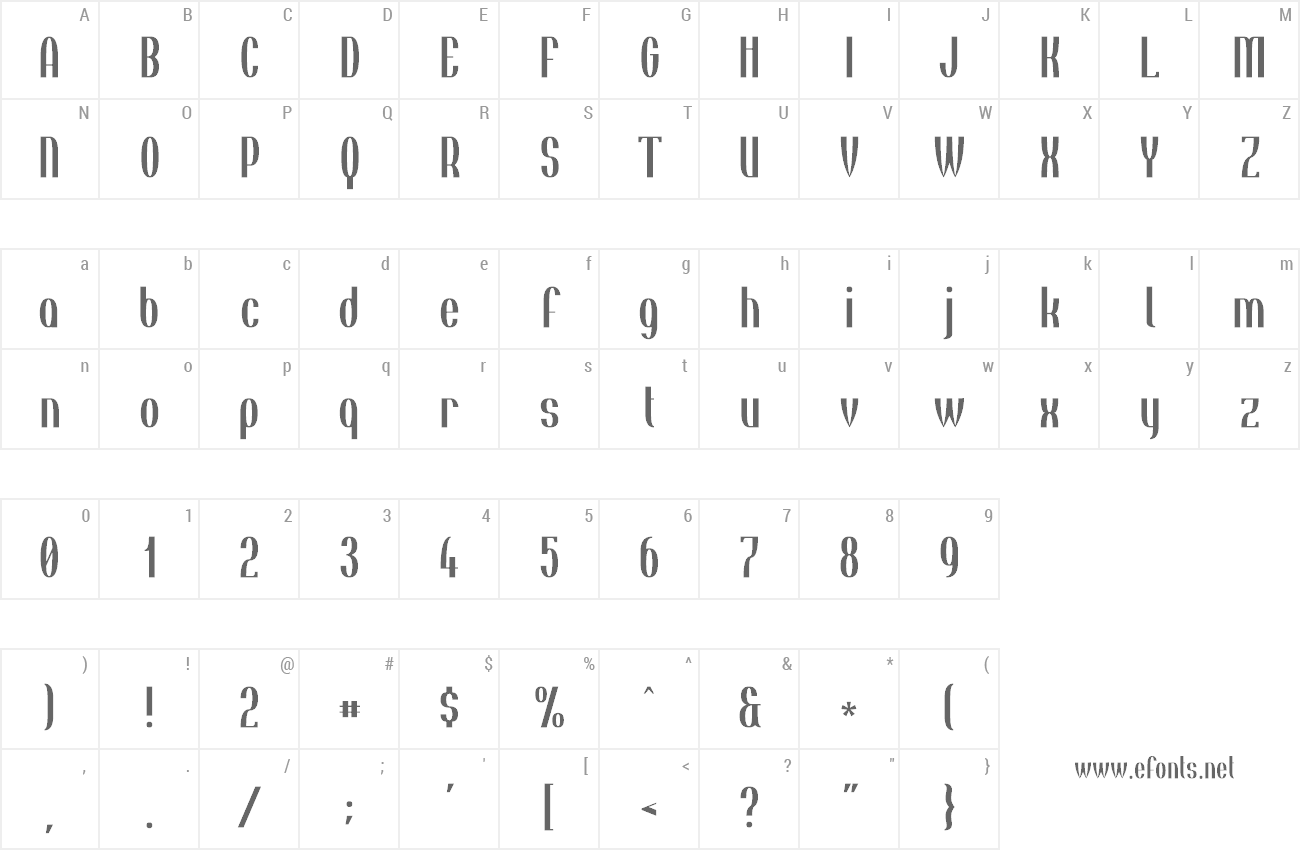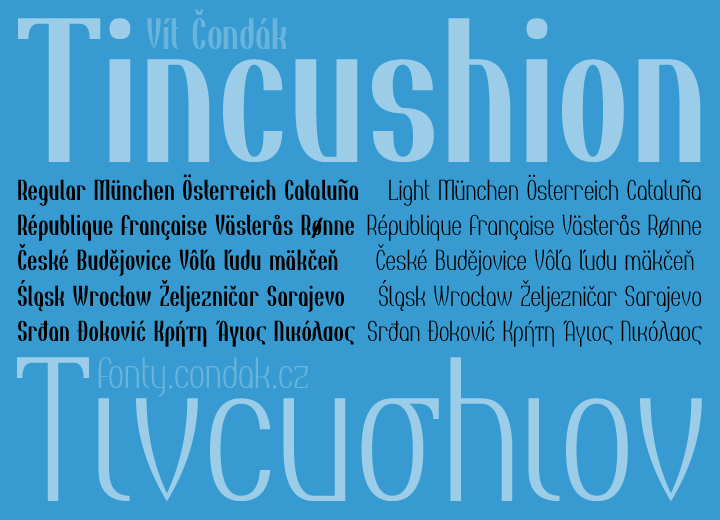
Preview and download Tincushion Font. Created by Vít Čondák in Basic Sans serif styles with Free for personal use license.
| Font name: | Tincushion |
| Author: | Vít Čondák |
| Note by Vít Čondák | |
| My take on a "serious" font including all diacritics marks I can think of, Greek and Russian Cyrillic. (2001-2015) Regular + Light |